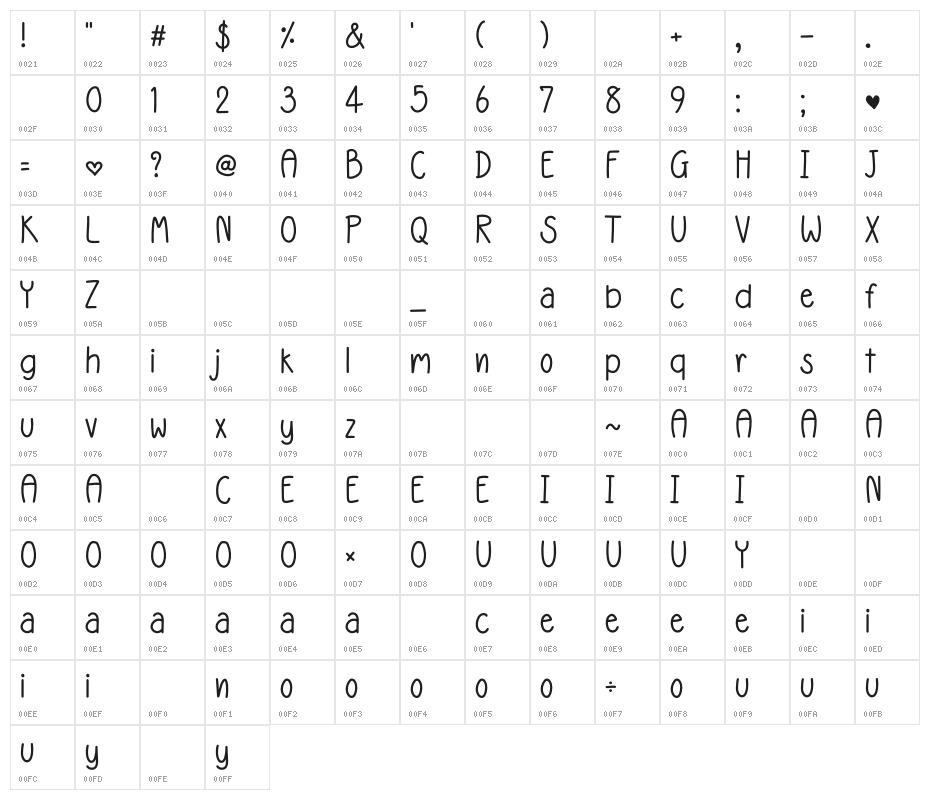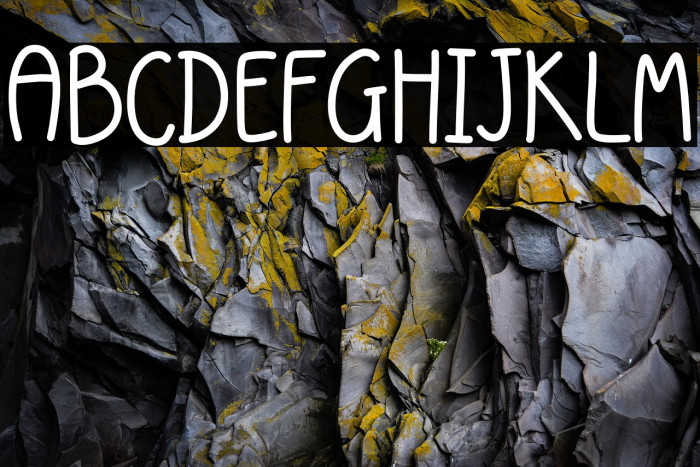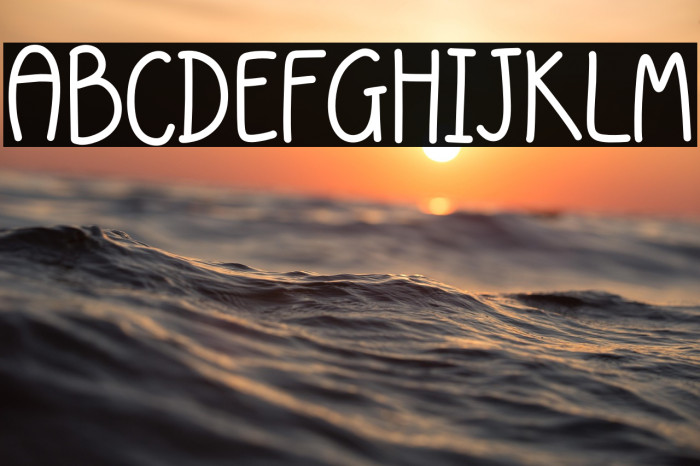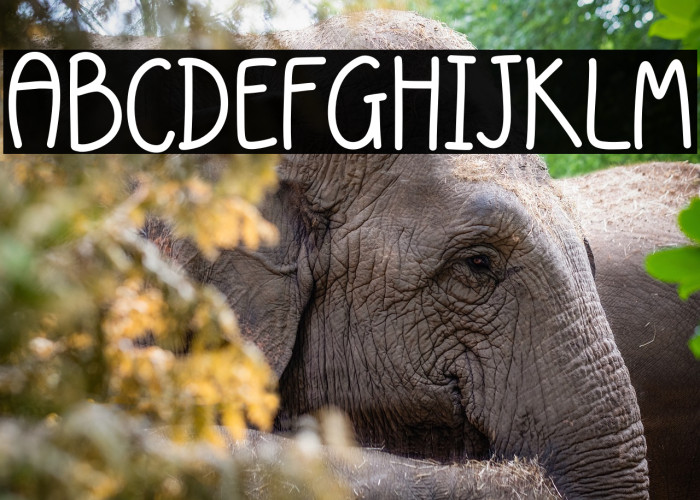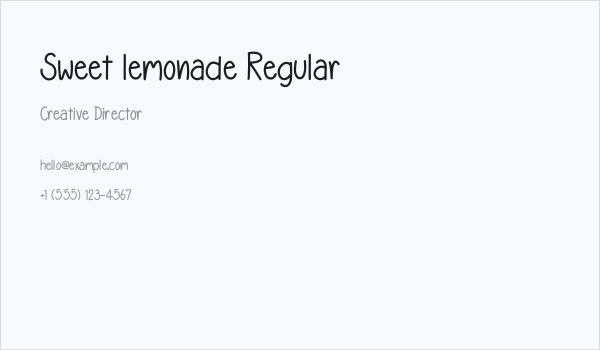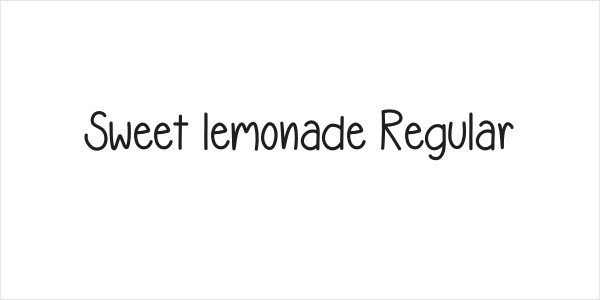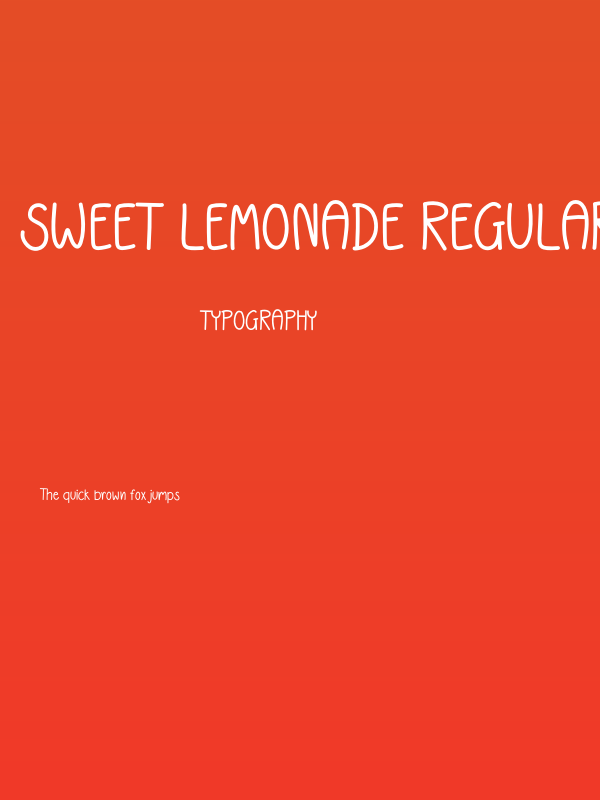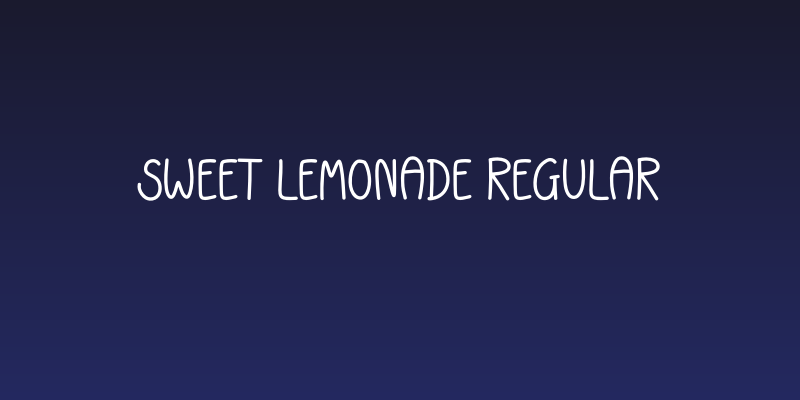
Sweet lemonade Regular Font
Sweet lemonade Regular Description
A playful, handwritten font with rounded edges and a casual style, suitable for informal and friendly designs.
| Use Case | Headlines, Informal text, Branding |
| Proposed Projects | Greeting cards, children's books, casual branding. |